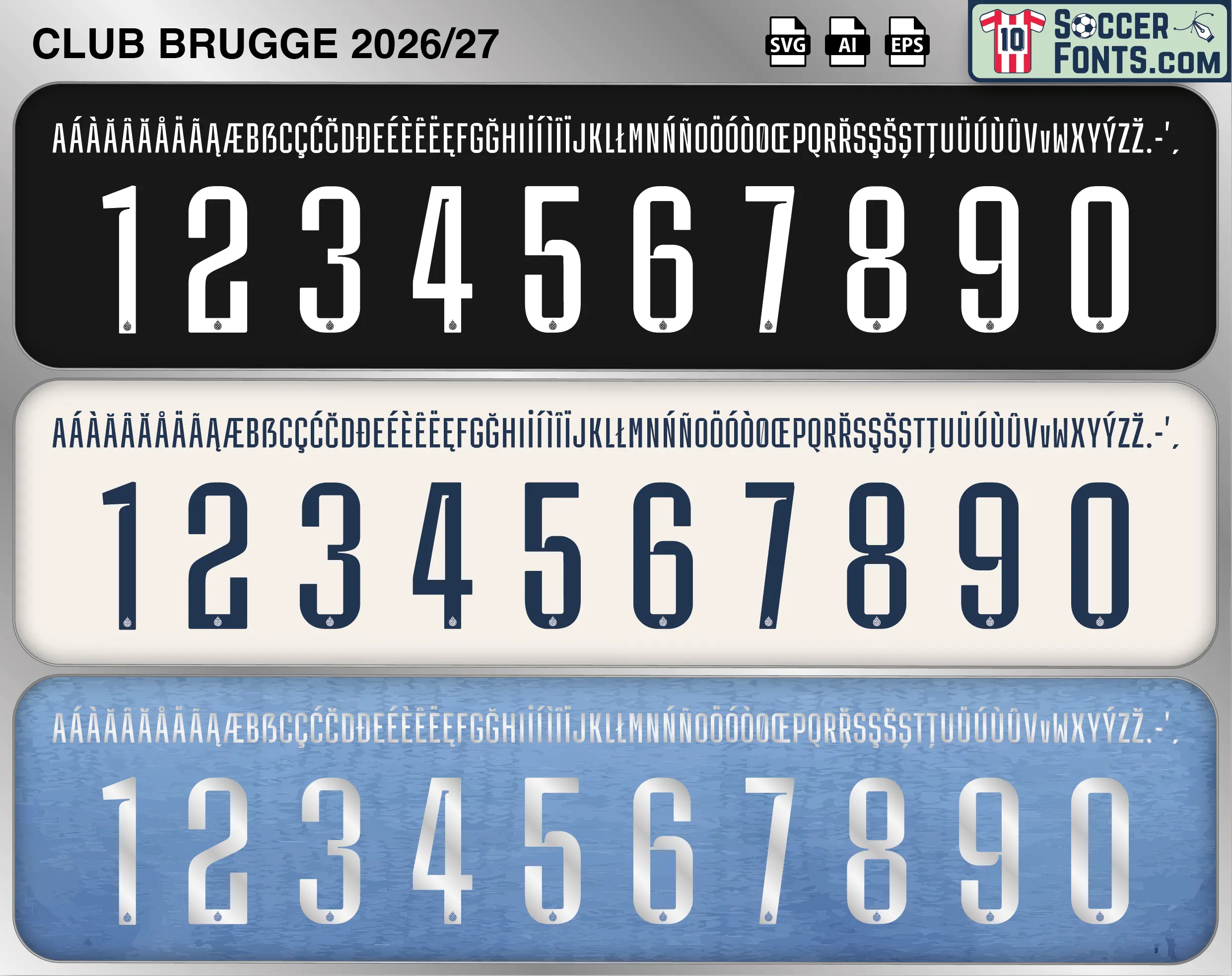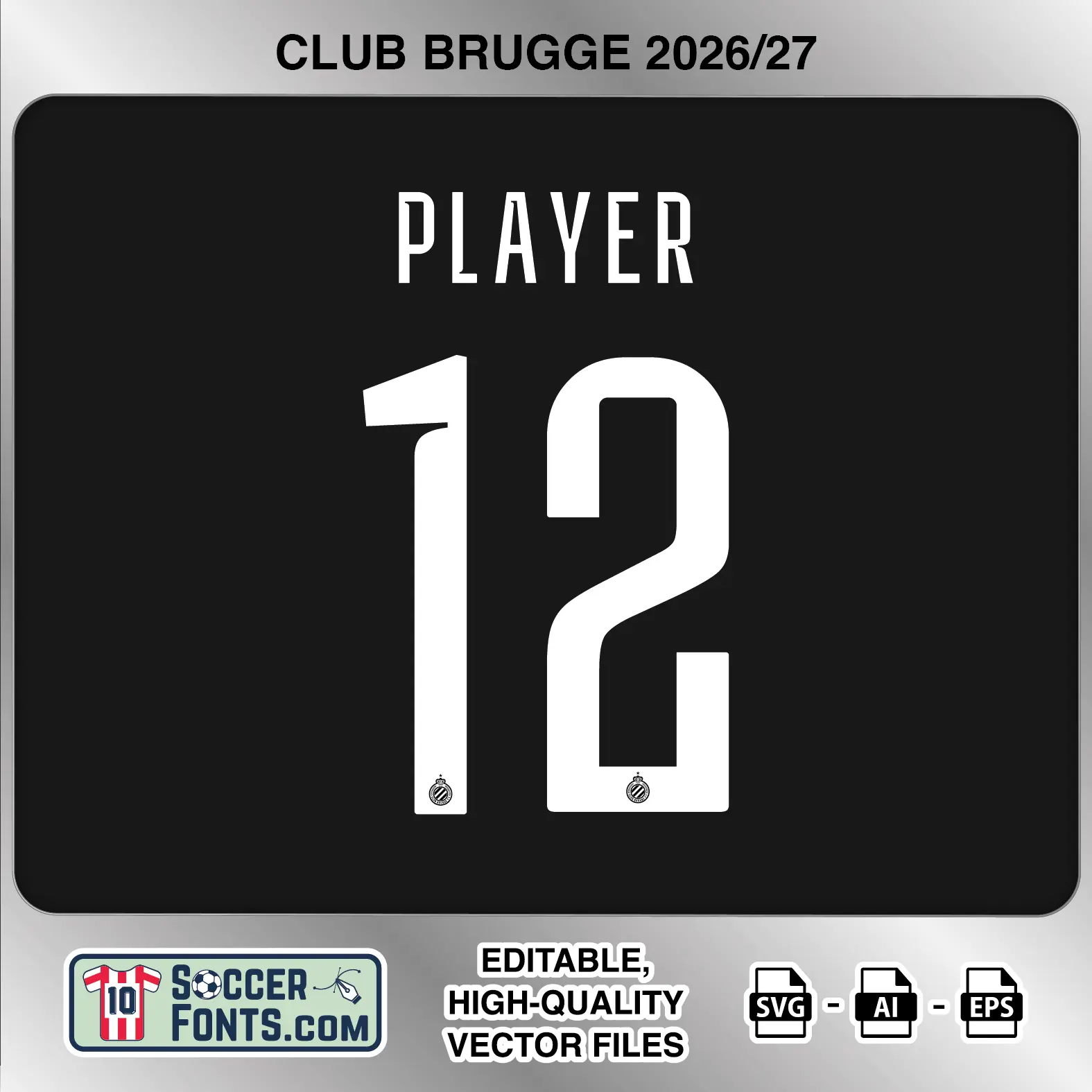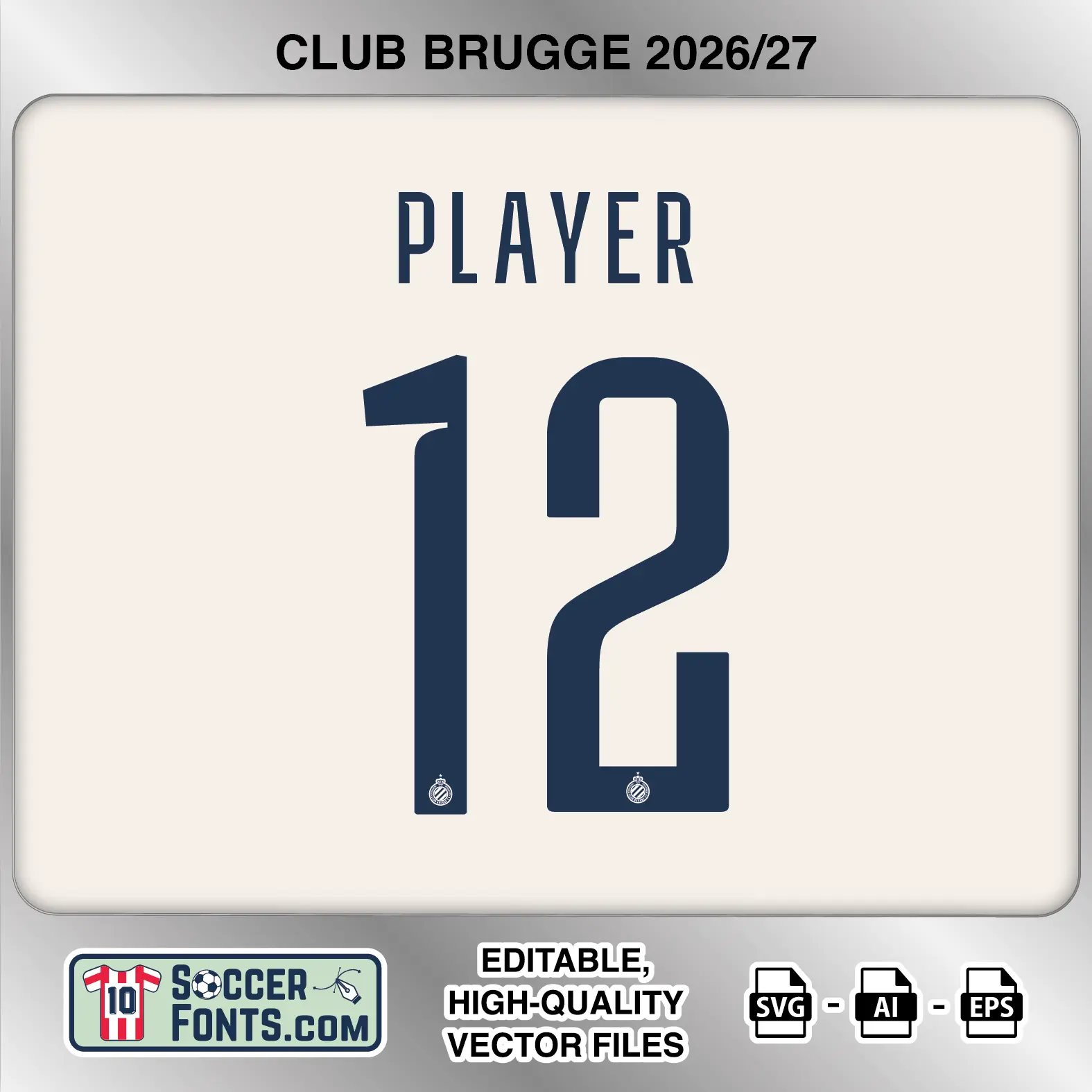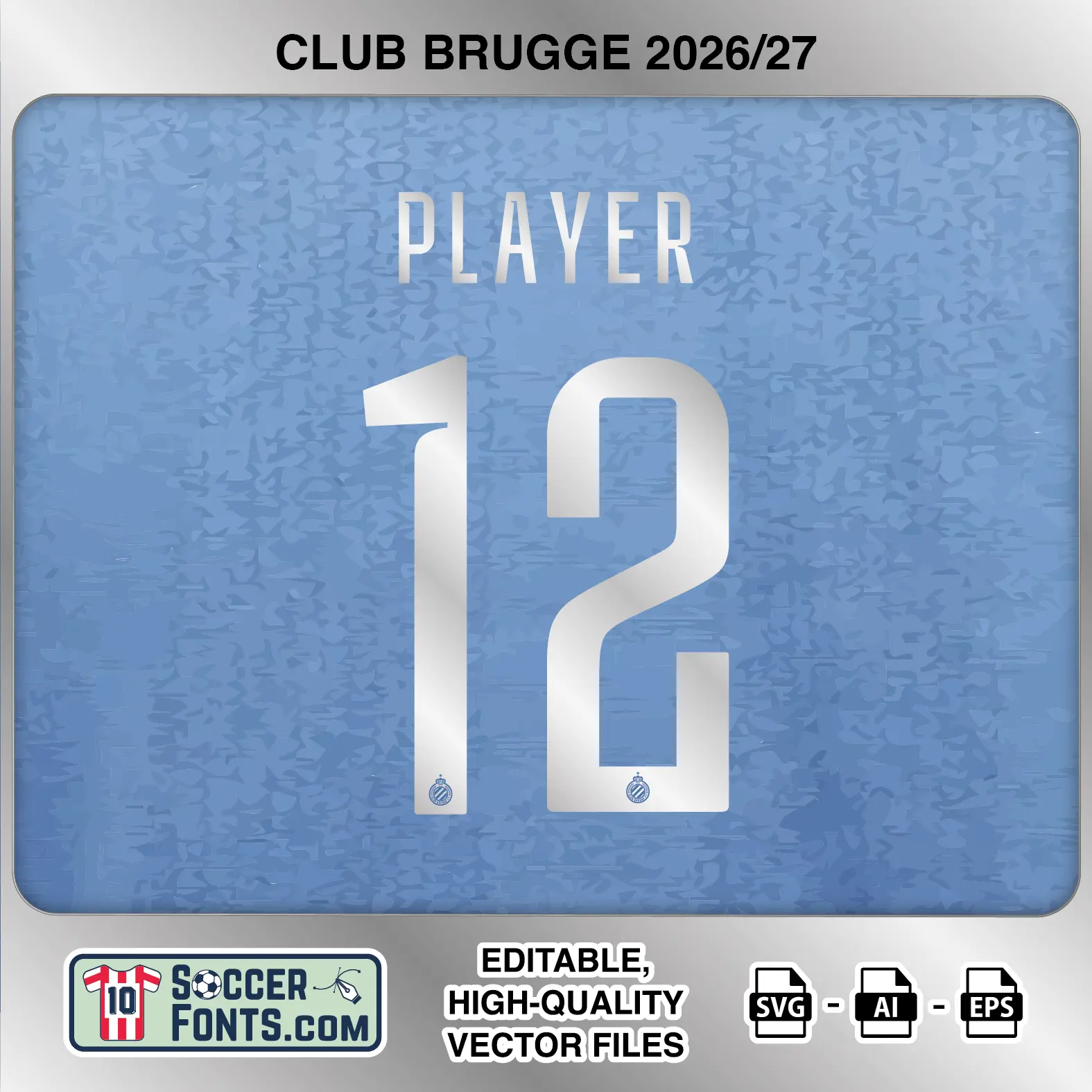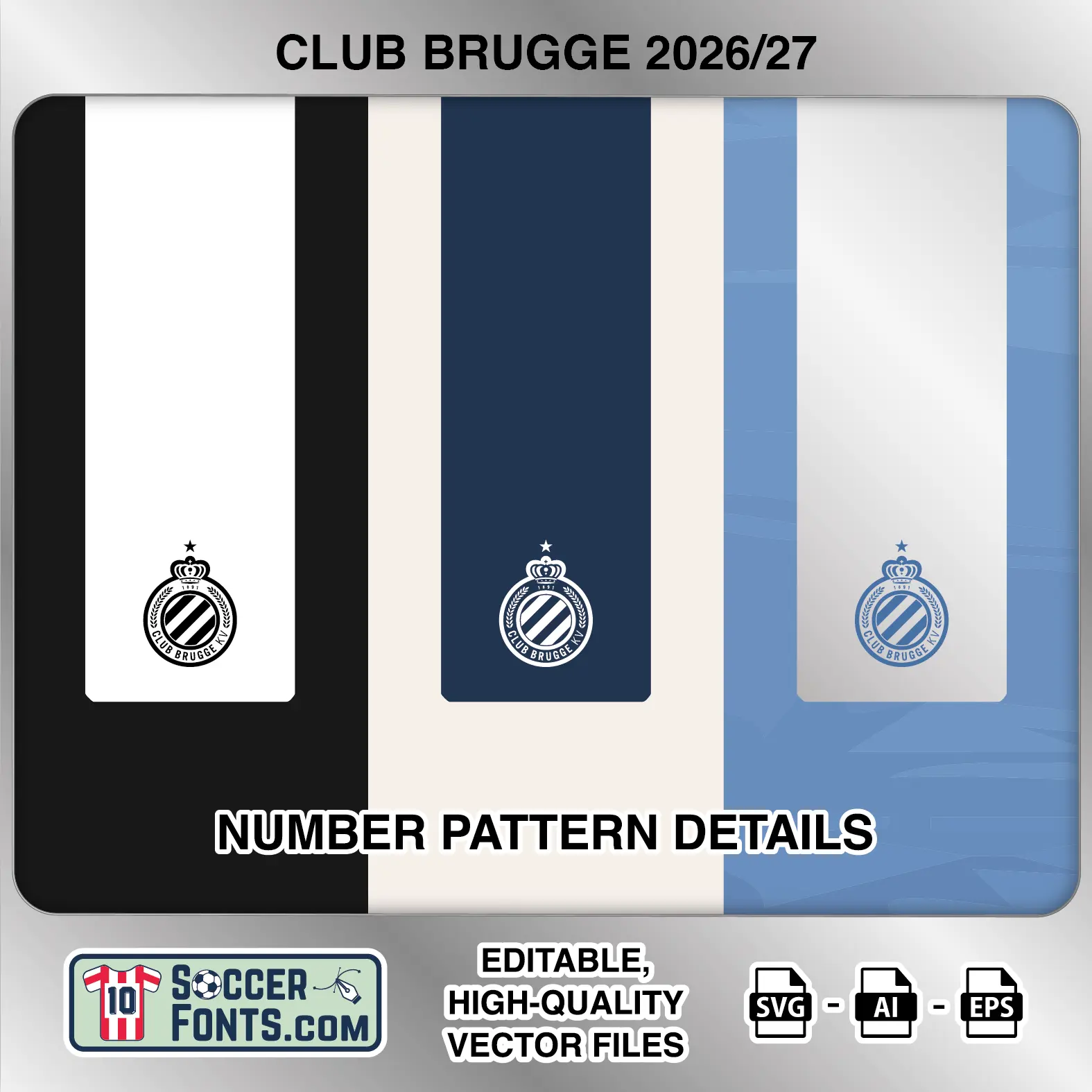
About Club Brugge 2026-27 Font
Download Club Brugge 2026-27 font, an editable soccer jersey lettering design in vector format inspired by the Club Brugge home, away and third kit styles used during the 2026-27 football season. This football font artwork is prepared for football shirt recreations, custom jersey projects, football kit mockups and sports graphic design workflows.
Visual Identity of the Font Design :
The Club Brugge 2026-27 lettering uses a tall and strongly condensed structure across both the uppercase alphabet and shirt numbers. The player-name characters are narrow with straight vertical strokes, compact spacing and subtle angular details, allowing longer names to remain relatively slim across the back of a jersey. The numbers are significantly heavier while maintaining the same elongated proportions. Rounded rectangular openings define figures such as 0, 6, 8 and 9, while the 1 features a distinctive slanted upper section and the 7 combines a short angled top with a long diagonal stroke. The number 2 is especially recognizable through its curved central transition and squared lower section. A small Club Brugge crest is positioned near the bottom of each numeral. Three treatments are shown in the complete set: white lettering on a black background, dark navy lettering on a light cream background, and white lettering against a textured light blue background. The character set also includes an extensive selection of accented uppercase letters for international player names.
Context of 2026-27 Season for Club Brugge :
Club Brugge entered the 2026-27 campaign with another demanding schedule combining Belgian domestic football with UEFA Champions League competition. The Club Brugge 2026-27 Font belongs to a season in which the club once again represented Belgium at the highest level of European club football while continuing its pursuit of domestic success.
The European calendar provides several major fixtures during the campaign, beginning with Aston Villa at home in September. Club Brugge will also face opponents including Inter, Lens, PSV, Liverpool, Napoli, Stuttgart and Bodø/Glimt during the Champions League league phase. These matches place the different 2026-27 shirts on prominent European stages alongside their use in Belgian competition.
For football shirt collectors and kit design projects, the Club Brugge 2026-27 Font brings together the lettering identity shown across the home, away and third treatments. With three coordinated color versions and the distinctive elongated number construction, the Club Brugge 2026-27 Font provides a complete reference for recreating the club’s 2026-27 jersey lettering.
Club Brugge 2026-27 football shirt font showing alphabet letters and jersey numbers
Club Brugge 2026-27 Font